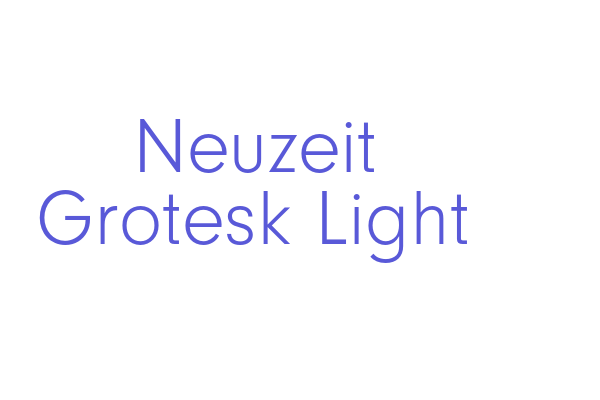
Neuzeit Grotesk Light is a sleek and modern sans-serif font belonging to the Neuzeit Grotesk font family. Designed by an unknown designer, this font is characterized by its light weight, making it perfect for minimalist designs and elegant typography. Ideal for use in branding, editorial design, and digital interfaces, Neuzeit Grotesk Light exudes sophistication and simplicity.
Font Name: Neuzeit Grotesk Light
Font Family: Neuzeit Grotesk
Weight: Light